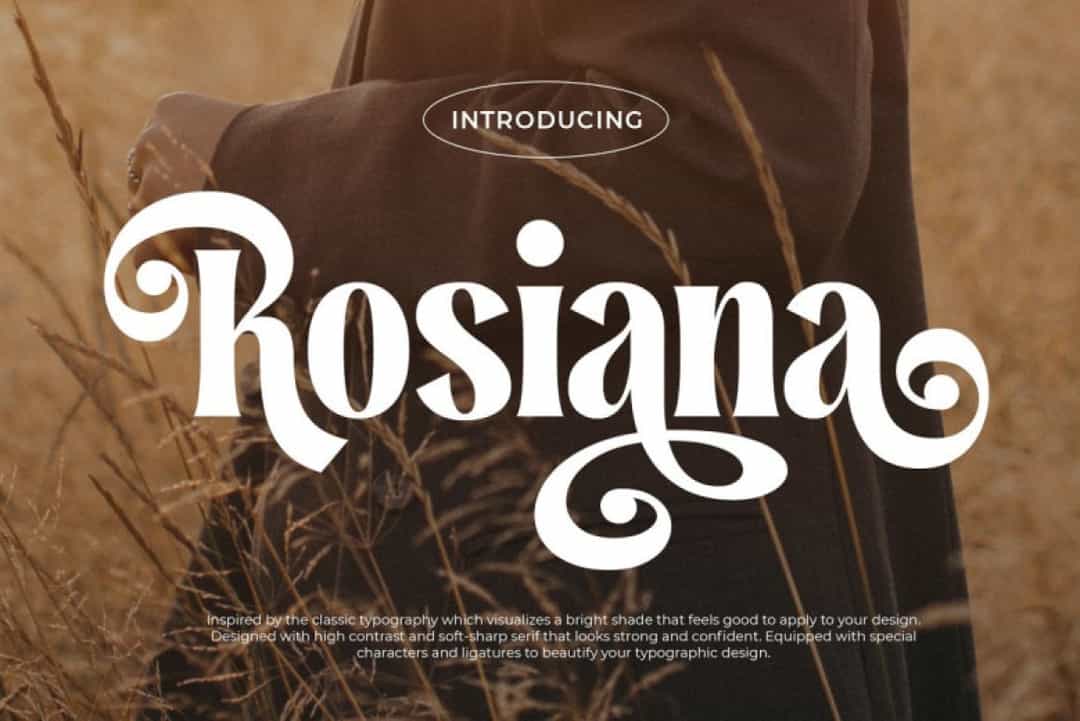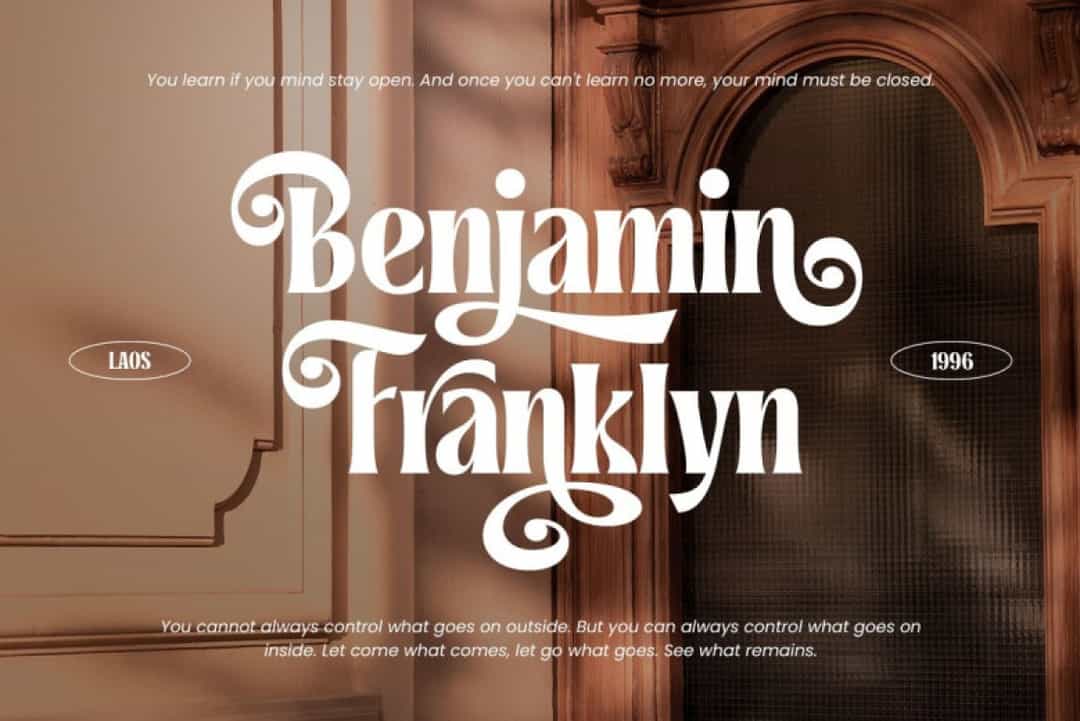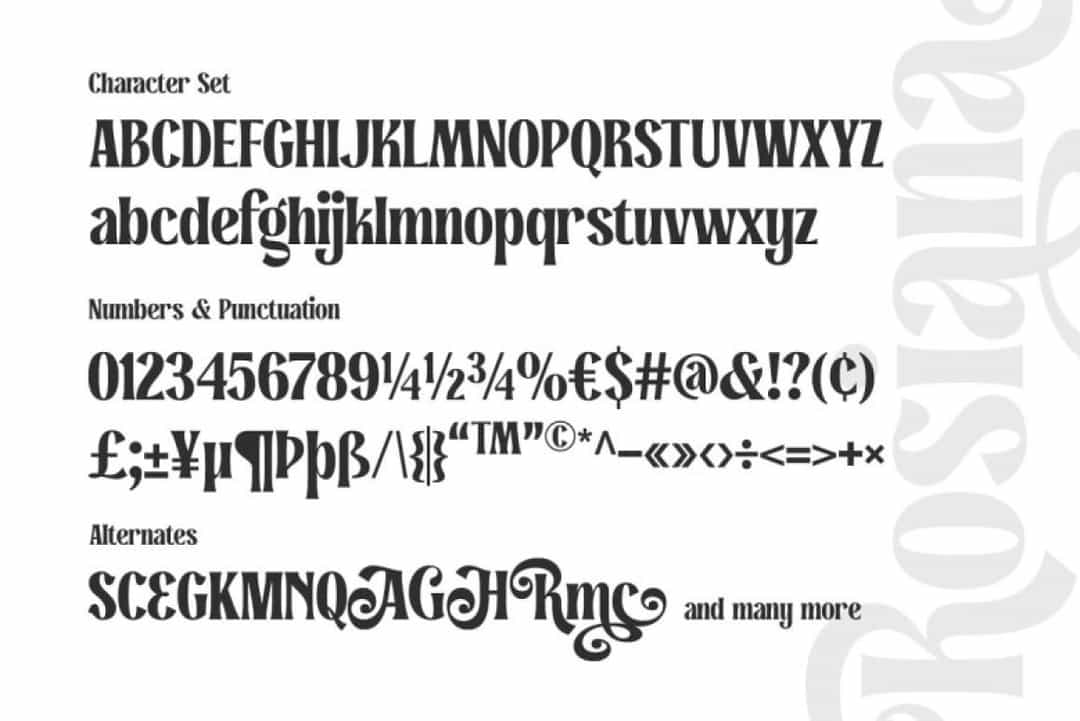
Rosiana is an elegant serif typeface inspired by classic typography. With its cheerful appearance and vibrant hues, this font can add zest and vibrance to your designs such as invitations, cards, magazines labels, book covers logotypes packaging etc.